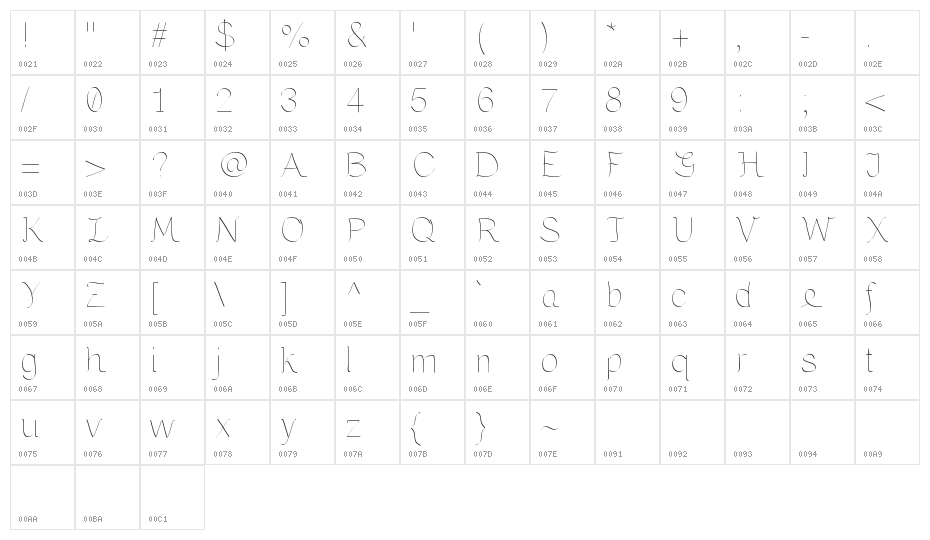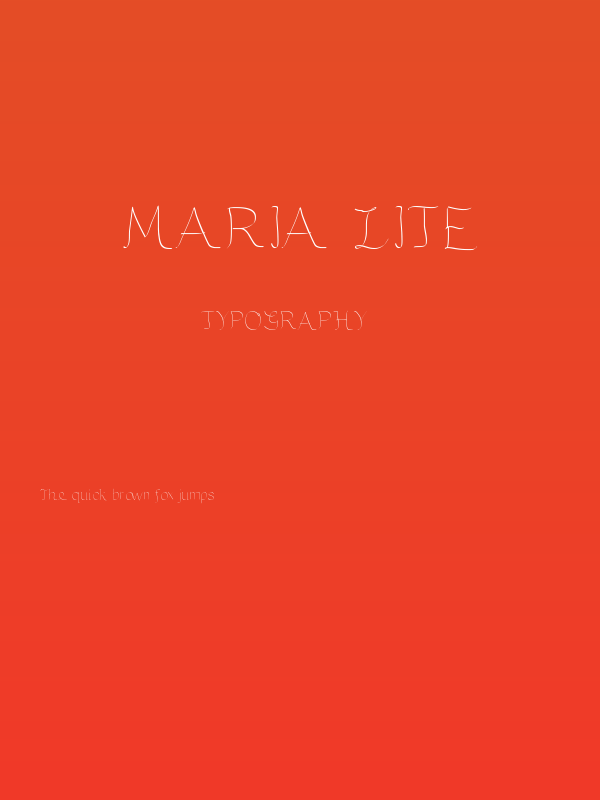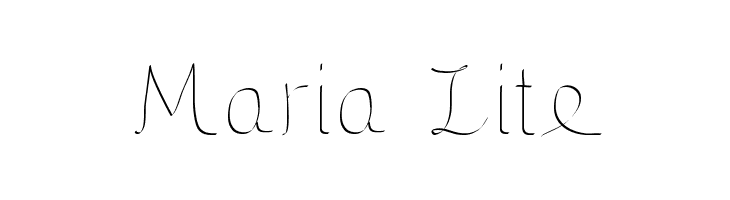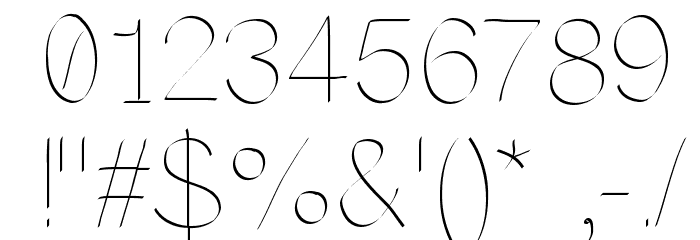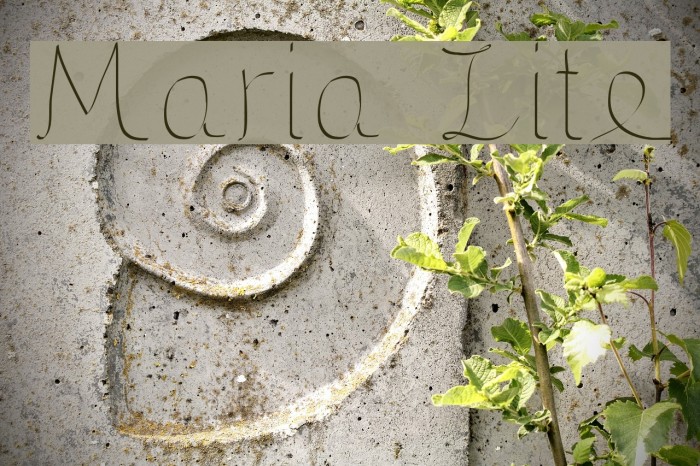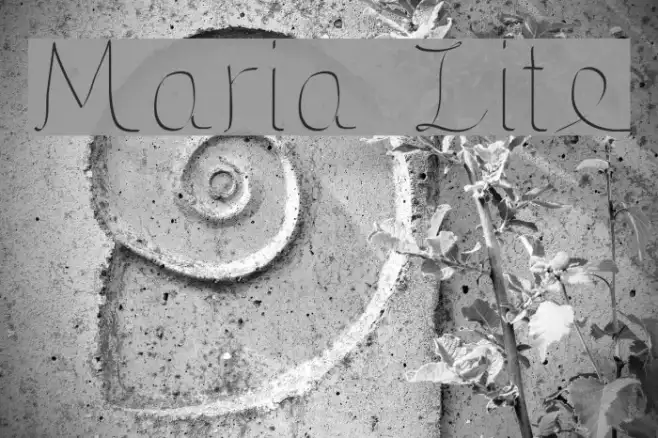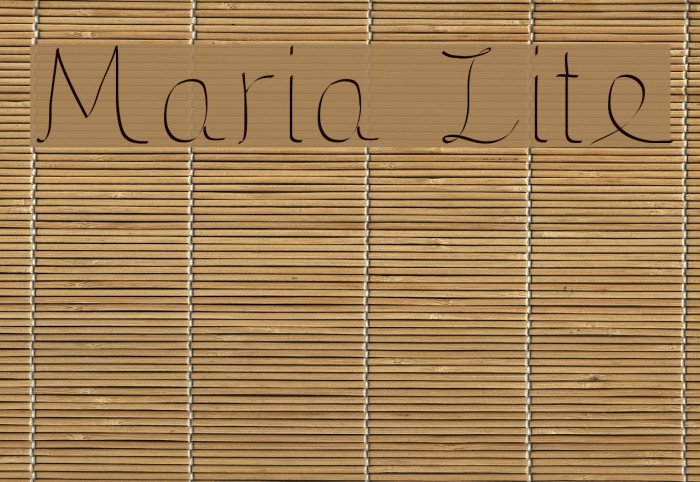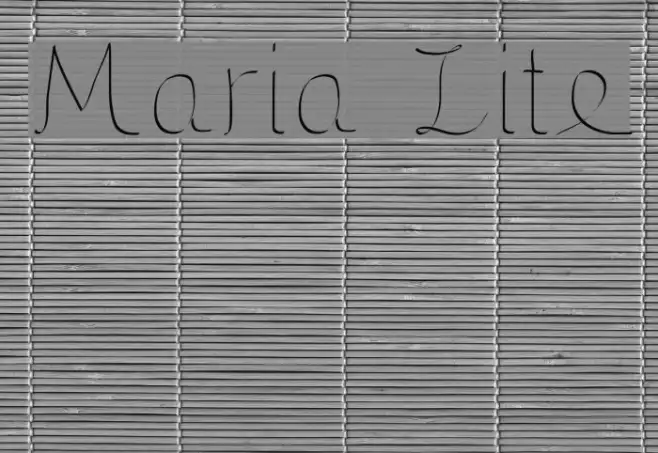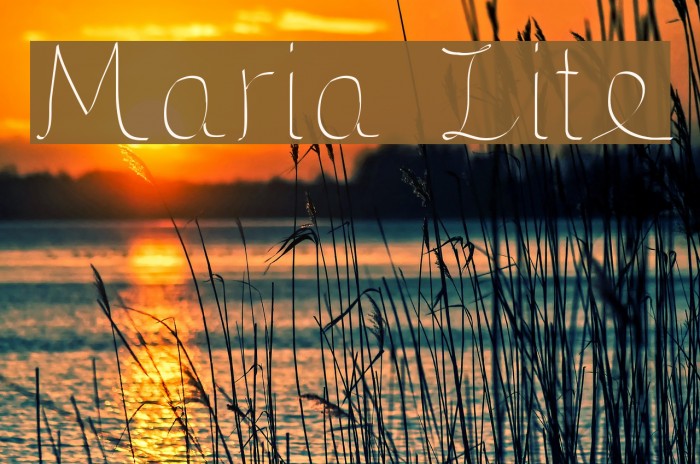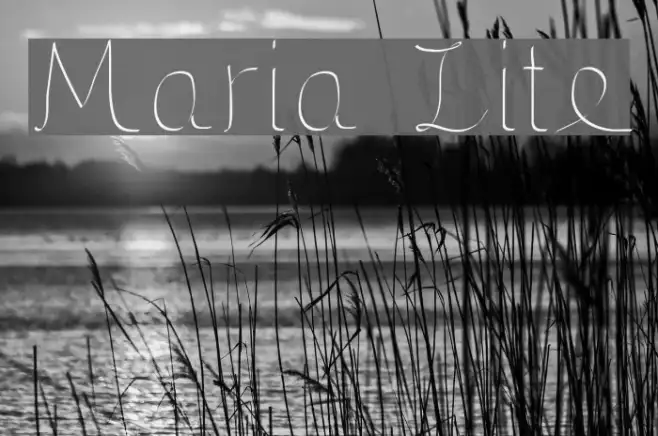
Maria Lite Font
Maria Lite Description
This font features a delicate and elegant script style with a handwritten appearance. The characters are thin and elongated, with a graceful flow that suggests a sense of movement and fluidity. The uppercase letters are slightly more structured, while the lowercase letters maintain a consistent, cursive style. The numerals and special characters complement the overall aesthetic with their slender and airy design. This font's light strokes and subtle curves create a refined and sophisticated look, making it suitable for projects that require a touch of elegance and charm.
| Overall Style | Elegant |
| Use Case | Logos, Invitations, Decorative text |
| Proposed Projects | Ideal for wedding invitations, personal branding, greeting cards, and elegant packaging designs. |